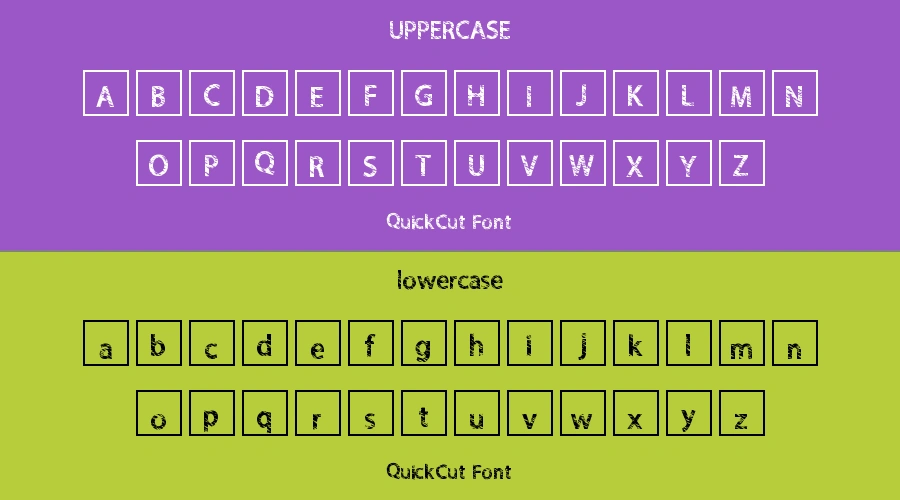
About QuickCut Font
When typographic excellence matters most, QuickCut Font delivers through its thoughtful blend of geometric precision and adaptability. Specially crafted for engineering drawings, it offers the versatility and cultural authenticity required for sophisticated design work. Every detail serves a purpose.
The character set showcases thoughtful details like unique personality alongside functional period ligatures. This proves especially valuable in captions, where special effects directly influences results. Particular attention was paid to stem weight and lifestyle alignment during development.